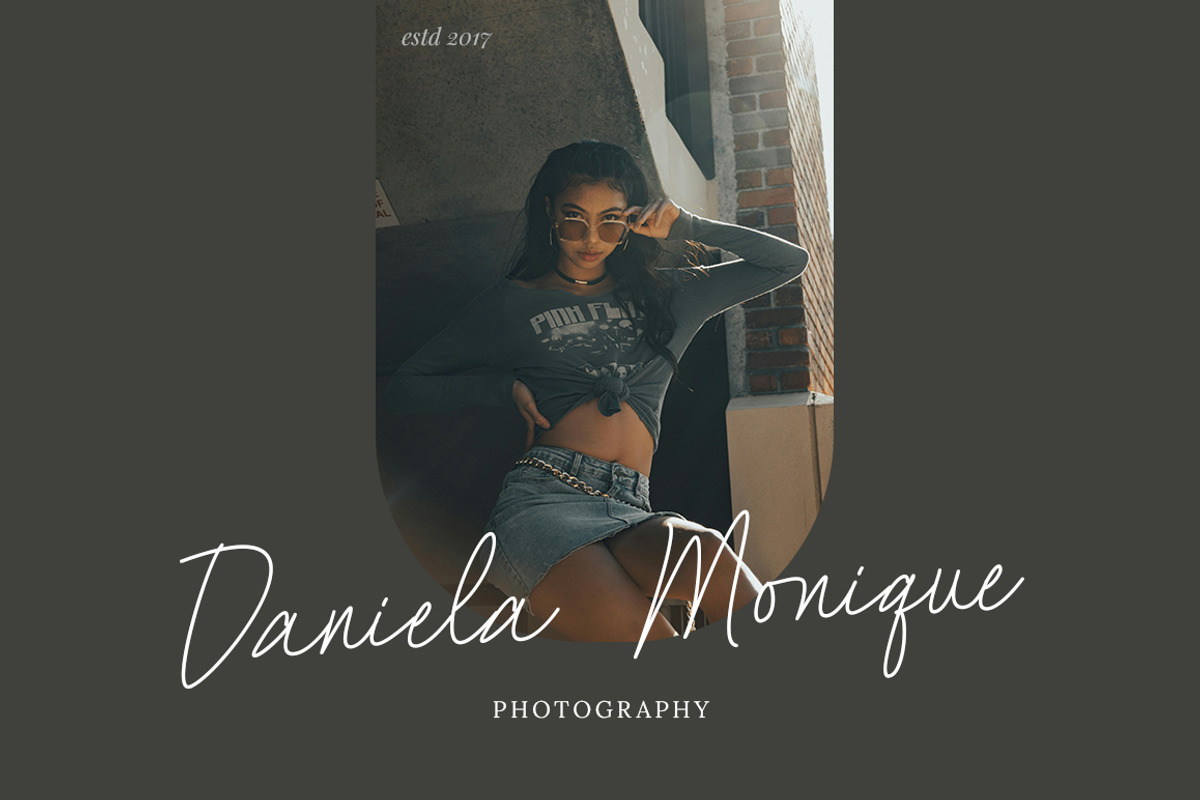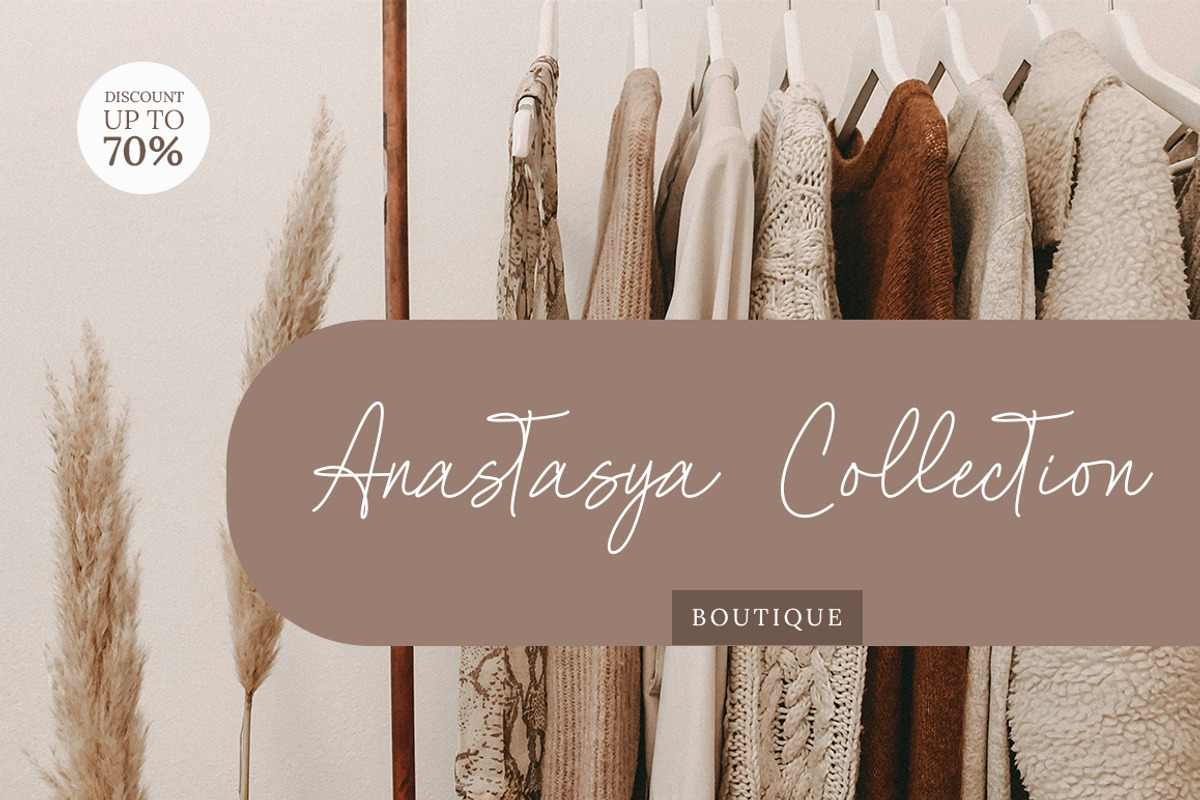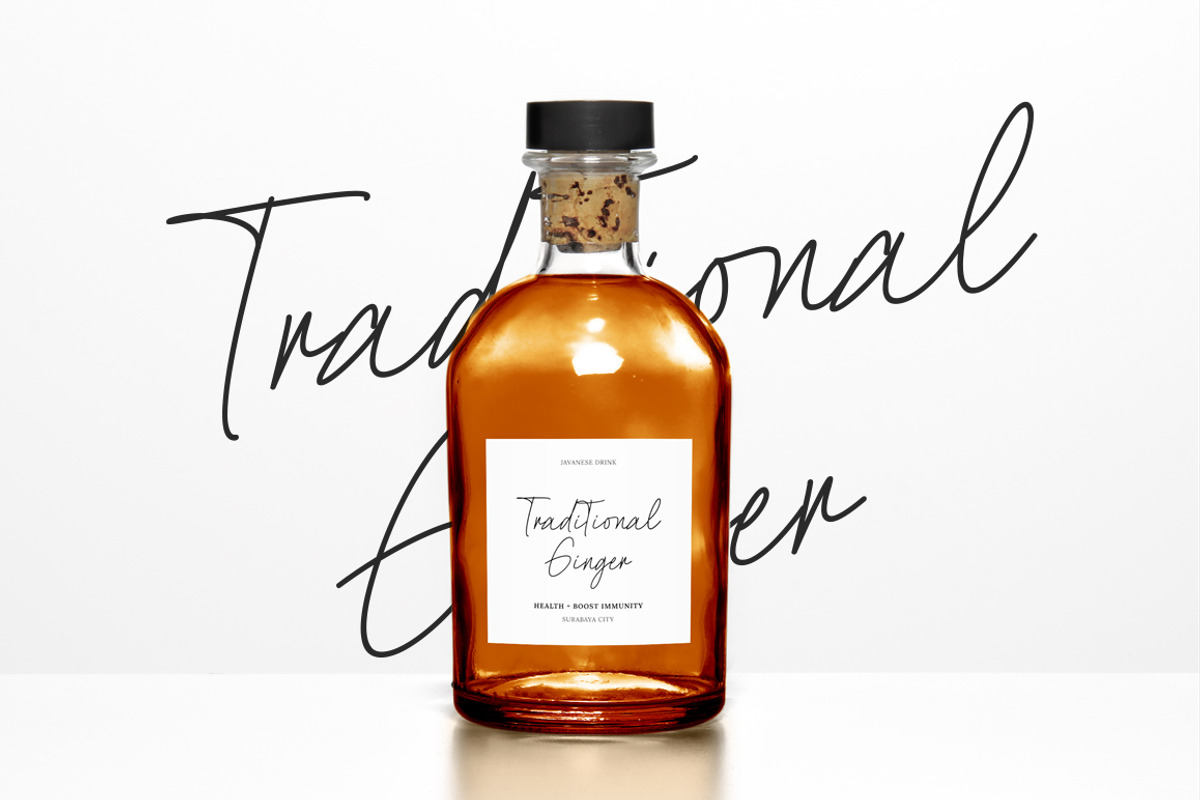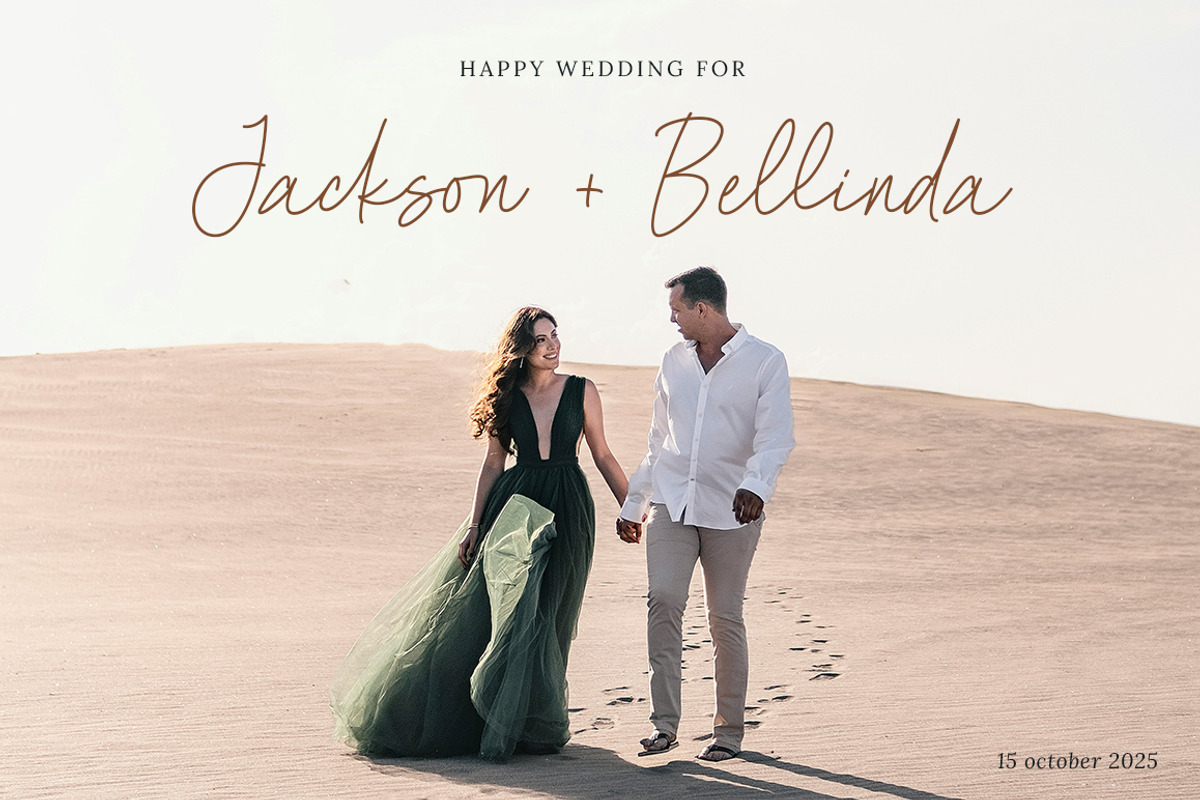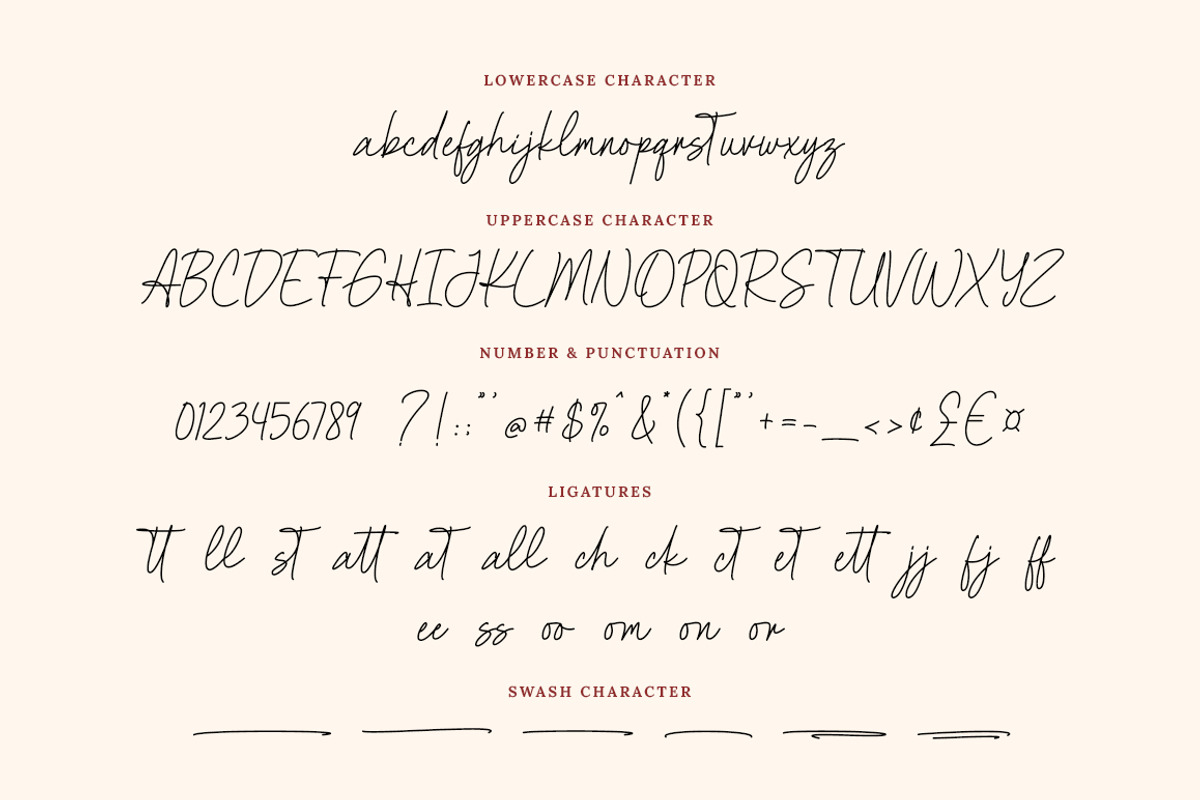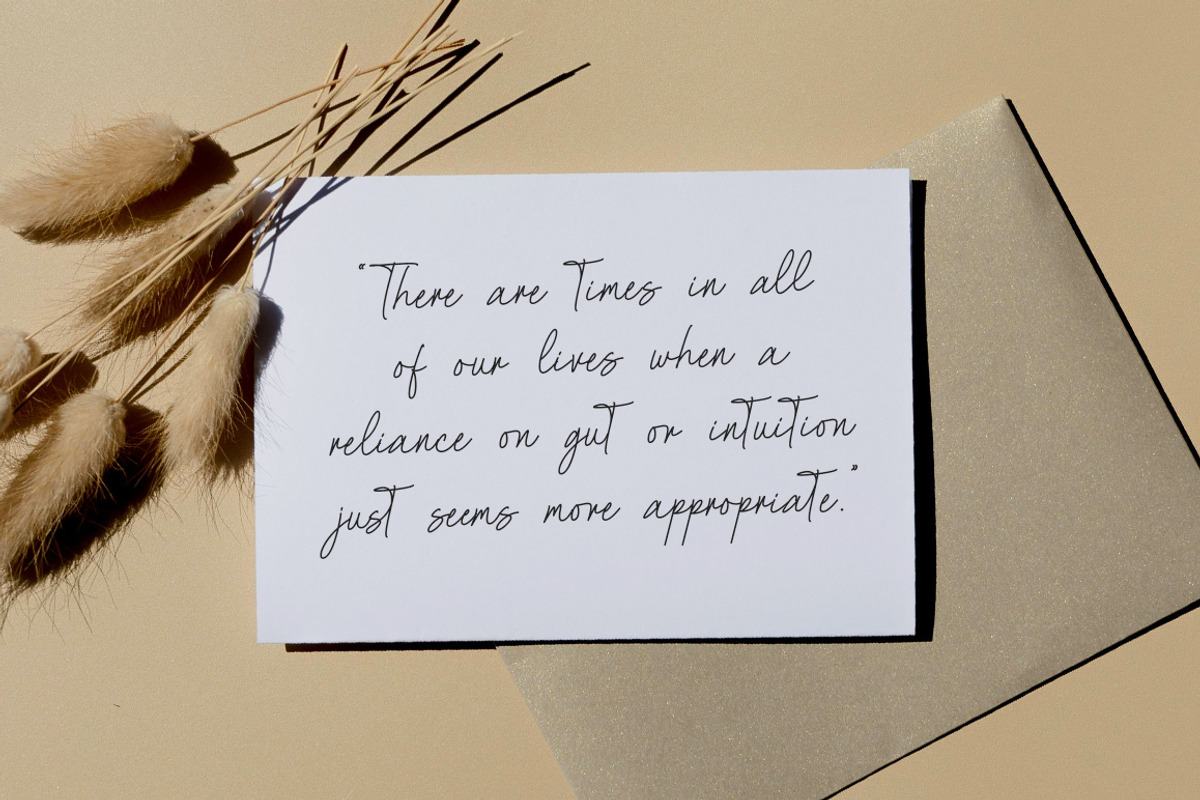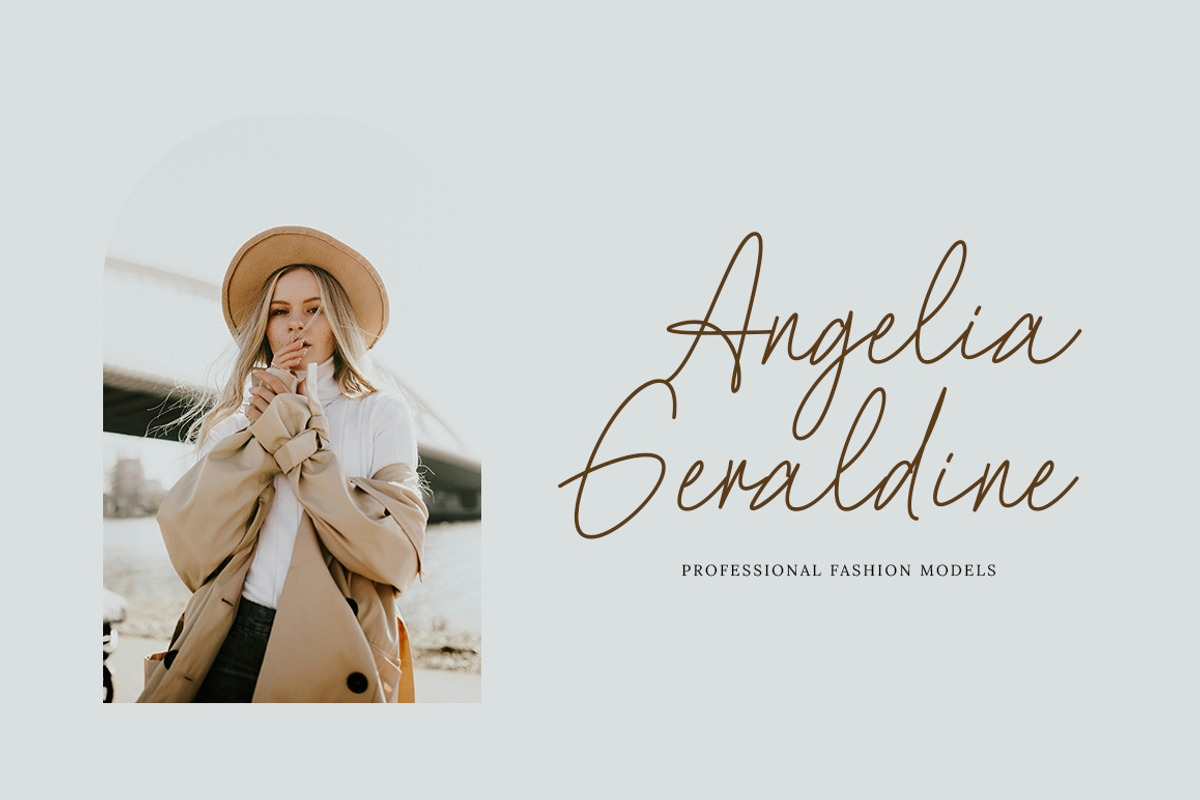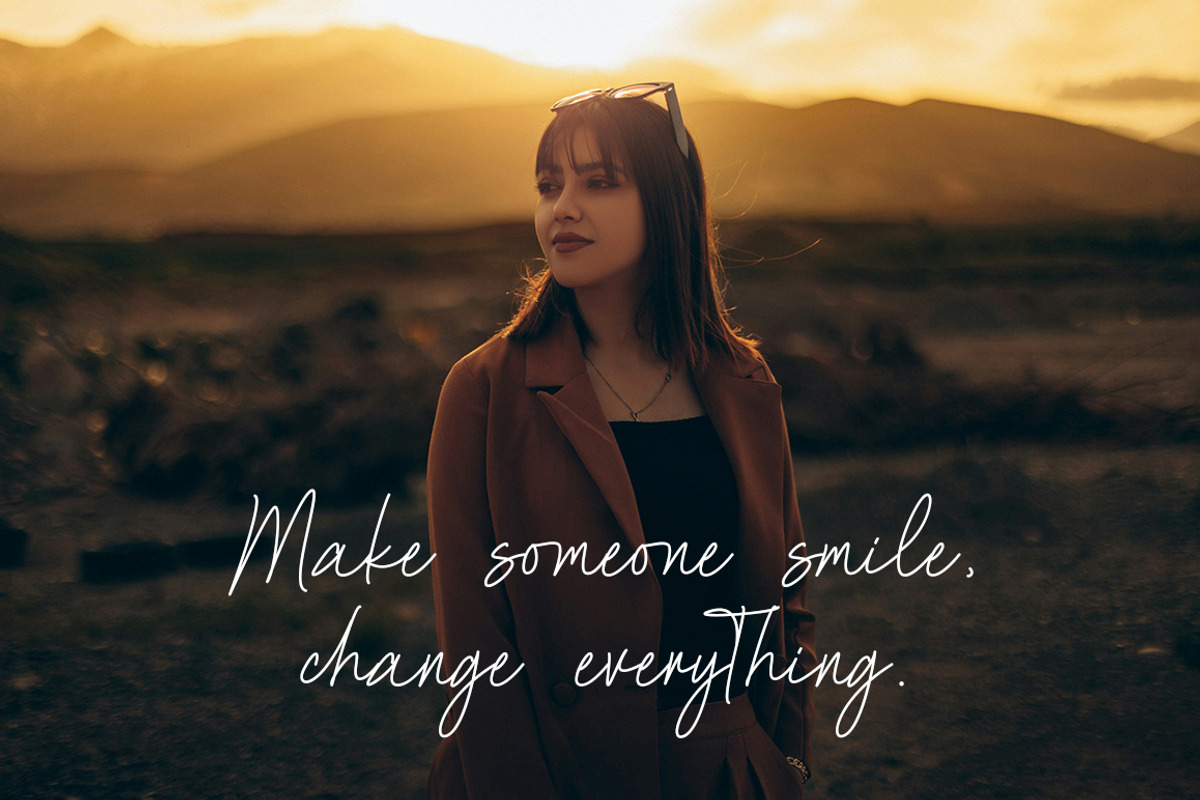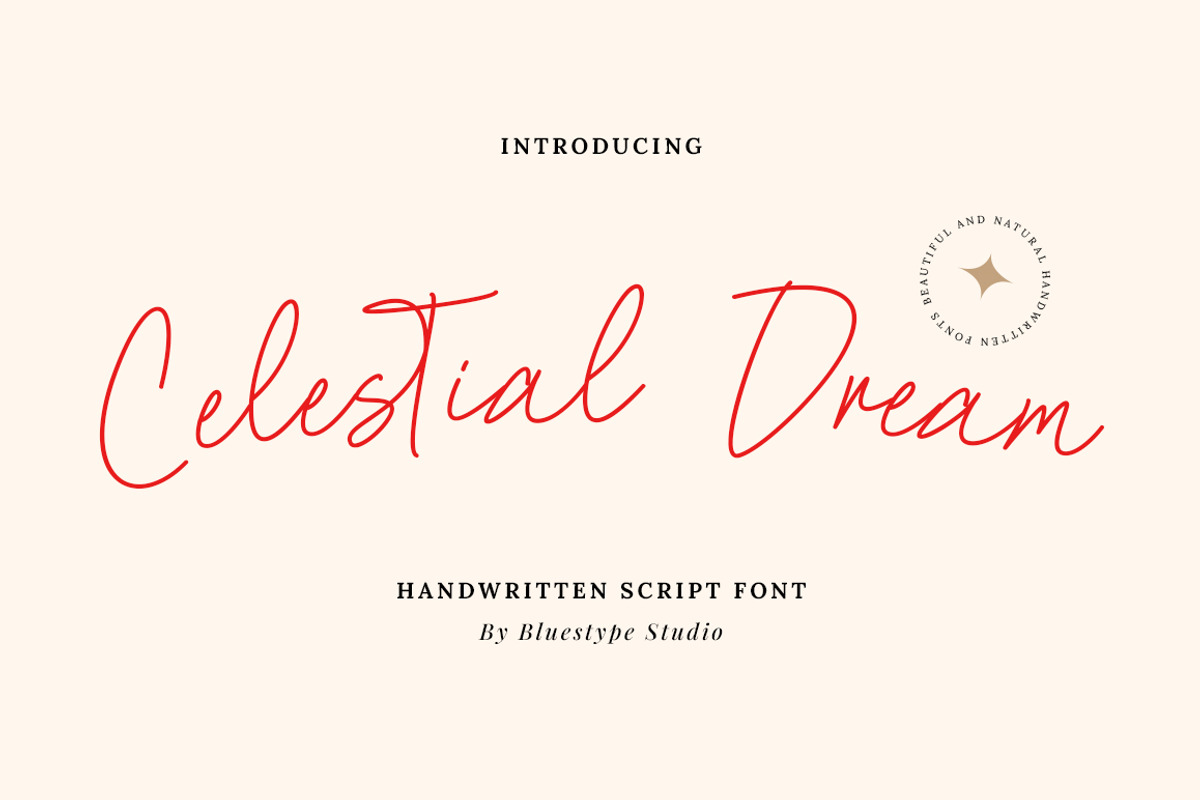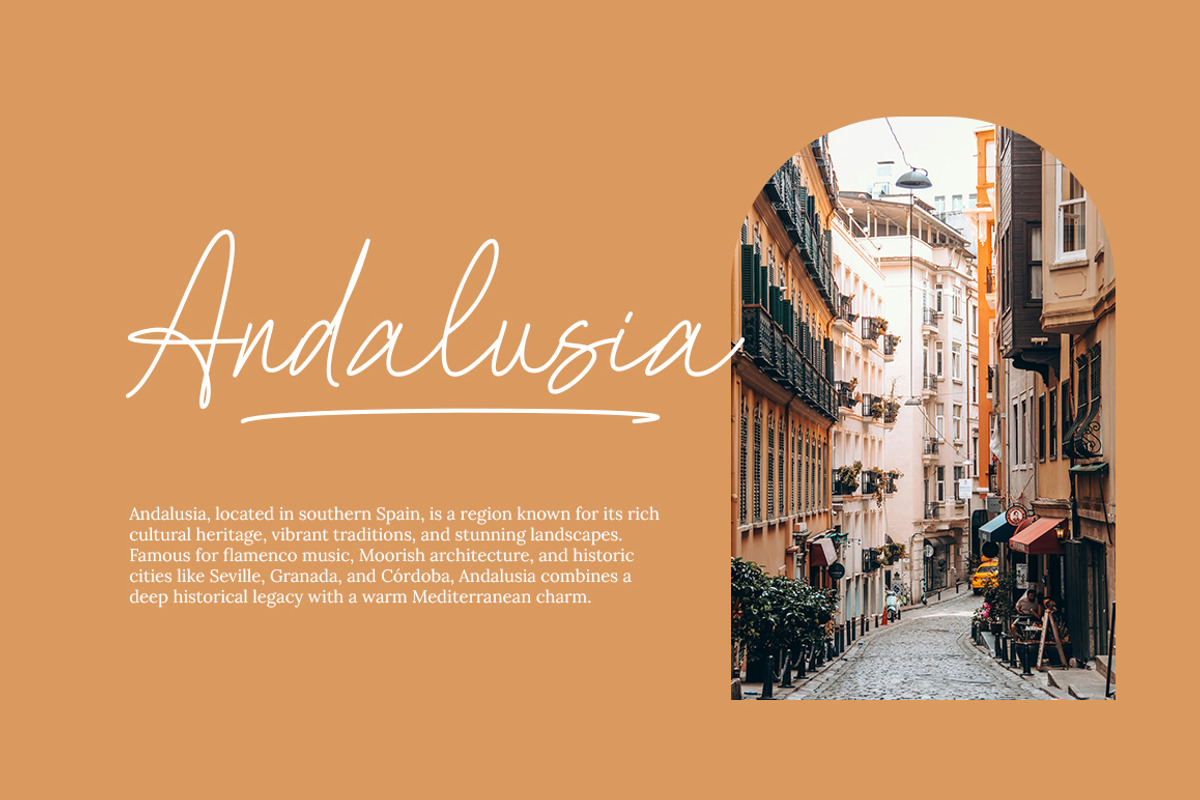
Celestial Dream - Handwritten Script
Introducing Celestial Dream - Handwritten Script Font
Celestial Dream is a modern handwritten script font that exudes elegance and charm. With its smooth curves and delicate strokes, this font captures the essence of sophisticated artistry.
Perfect for wedding invitations, branding projects, social media posts, and more, Celestial Dream brings a touch of modern beauty to every design. Its versatile style ensures your creations will stand out with a graceful and personal touch. Let your creativity shine with Celestial Dream!
- Swash Character